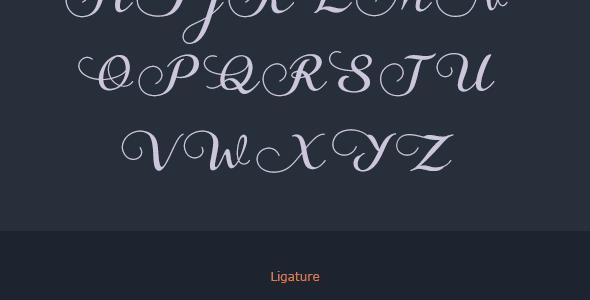
Golden Memories Script Font
Golden Memories is handmade script font. Suitable for various design project. Use this font to give your text a smooth artistic feel. Golden Memories comes with 350+ glyphs.